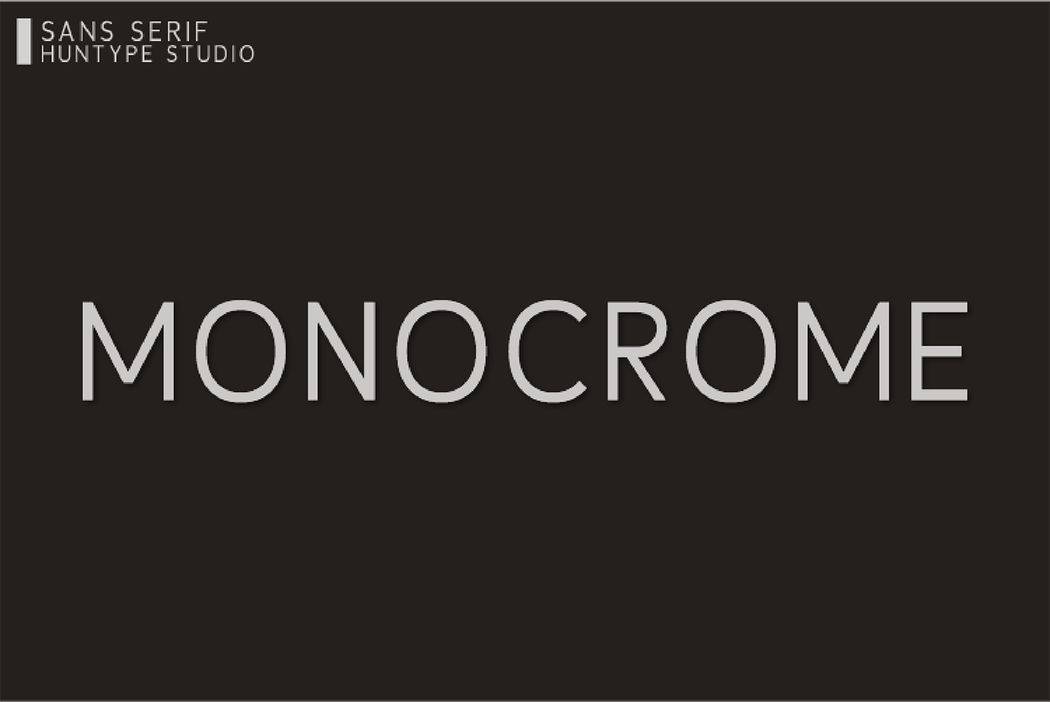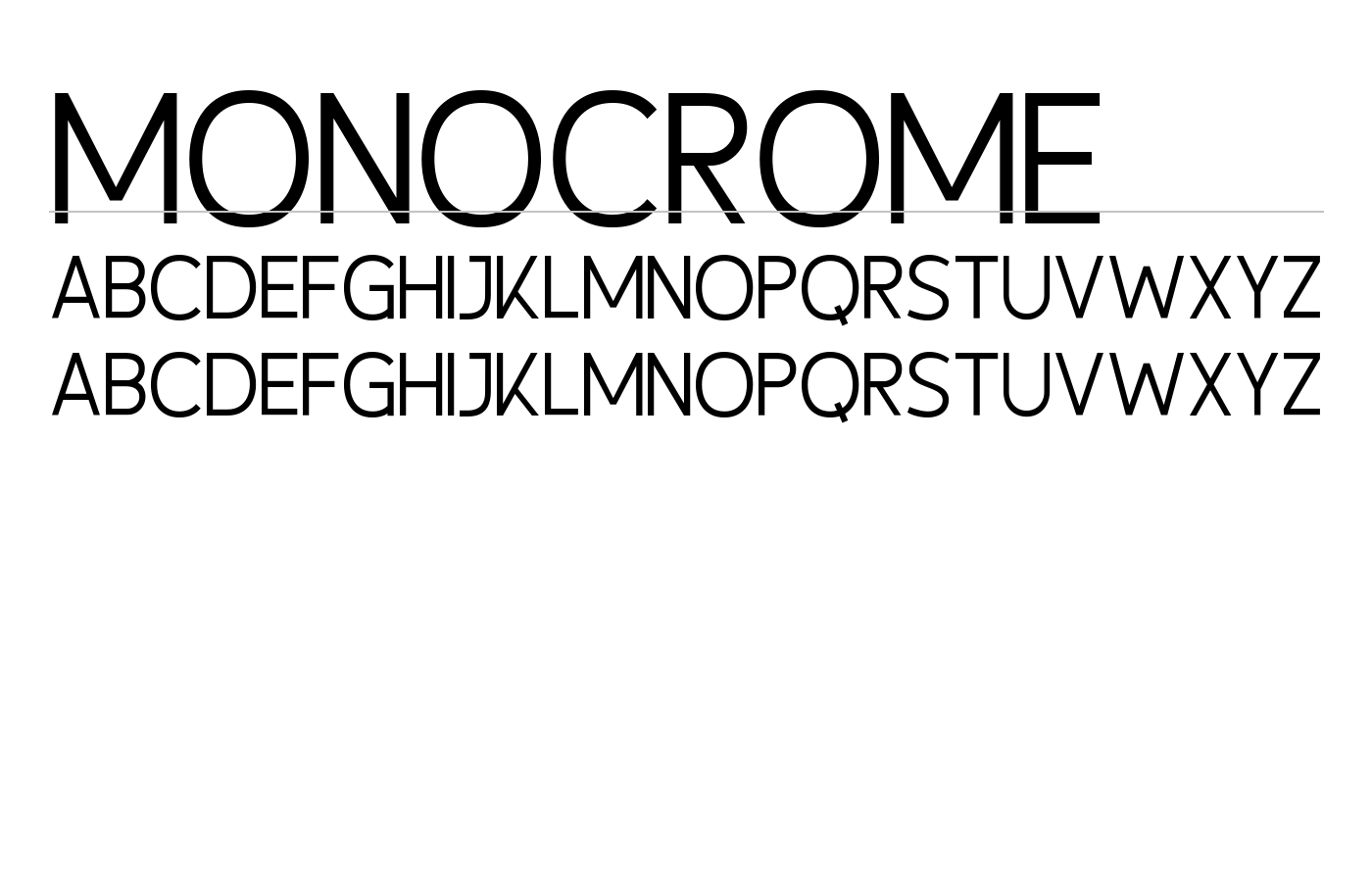
Monocrome Font is a sleek, modern sans serif typeface characterized by its clean, geometric shapes and consistent stroke weight, giving it a refined and minimalist appearance. Its tall x-height and narrow proportions create a sense of elegance and sophistication, making it ideal for contemporary branding, editorial headlines, and stylish packaging where a crisp, professional look is desired. This font’s clarity and simplicity make it perfect for designs needing a modern yet timeless feel.
Monocrome Font
About Monocrome Font